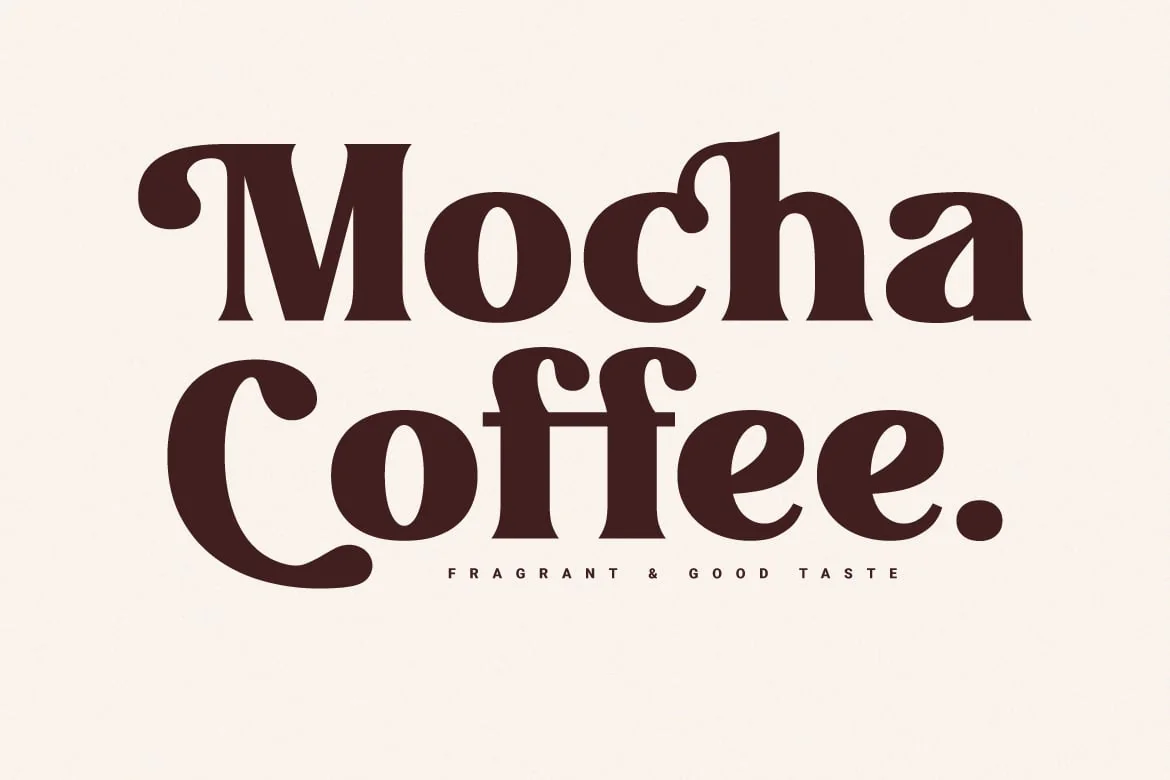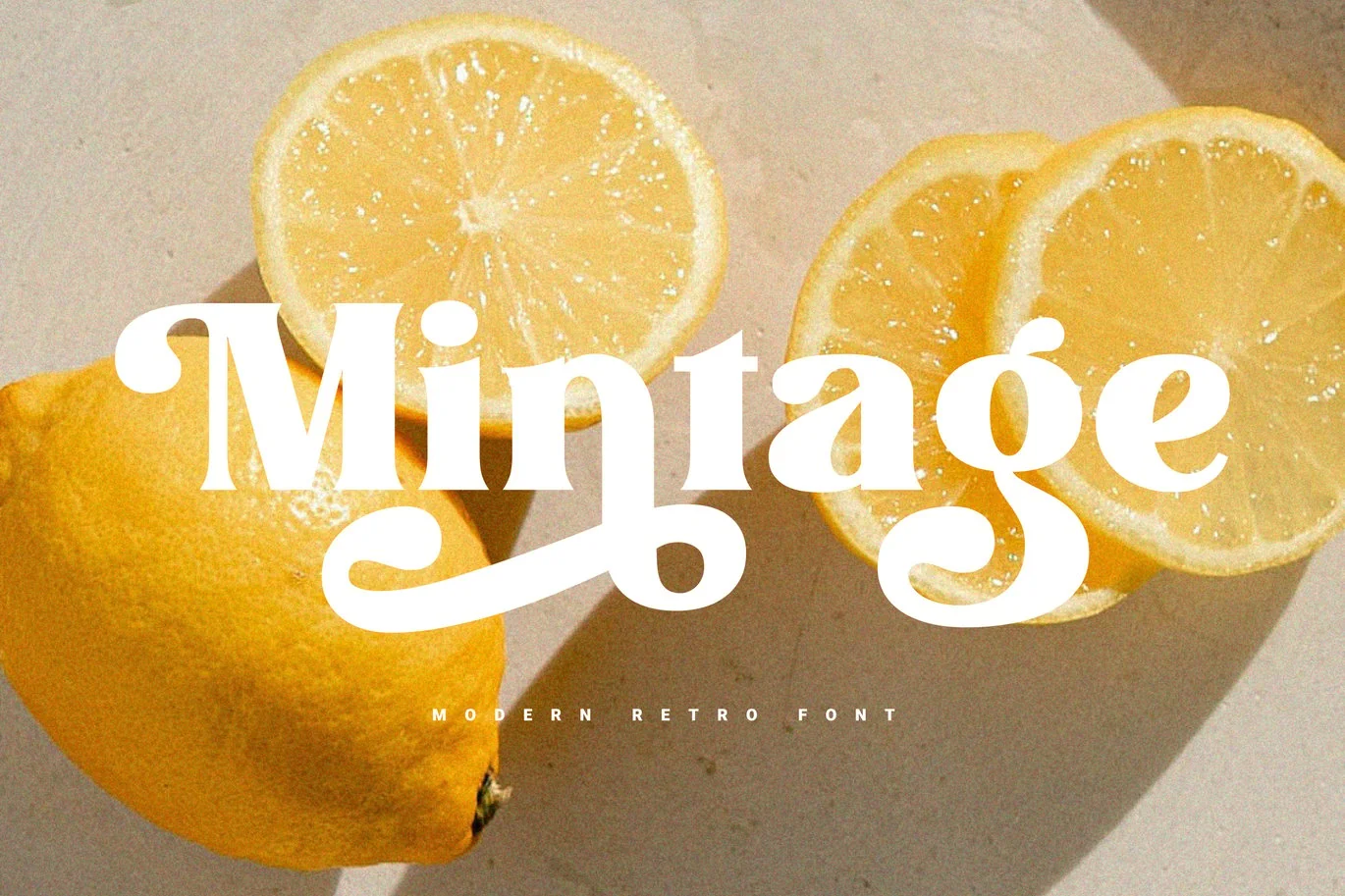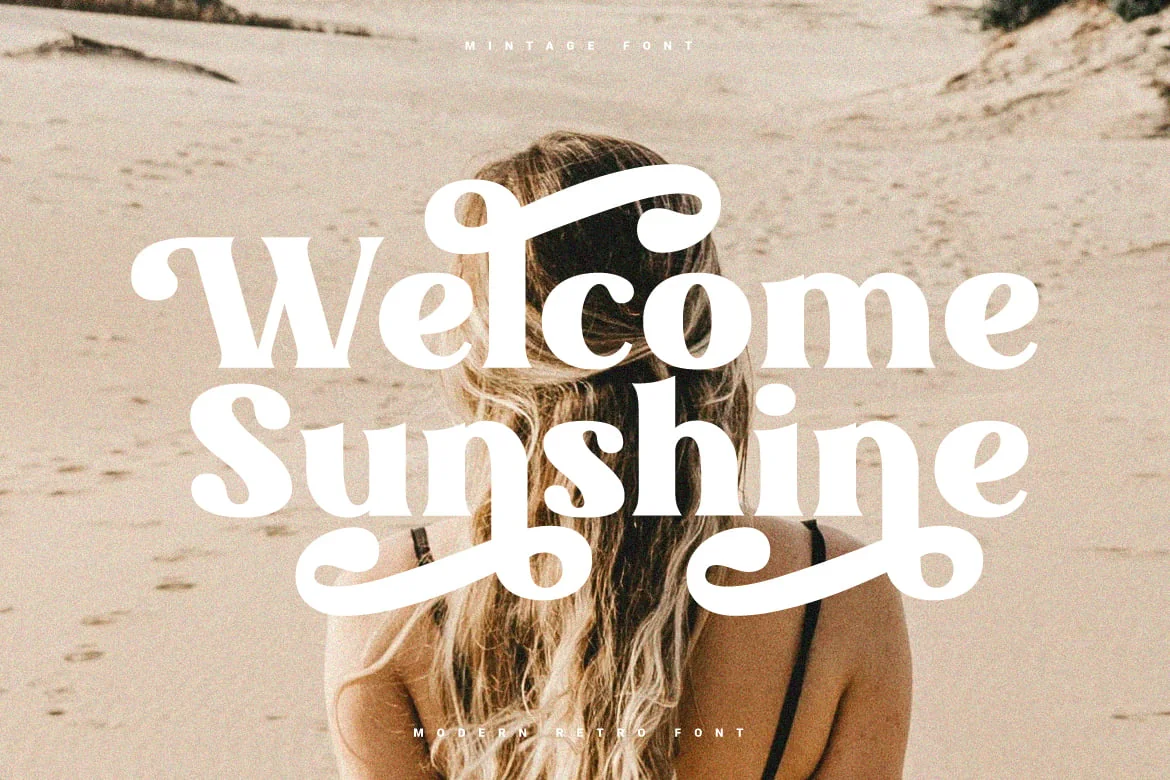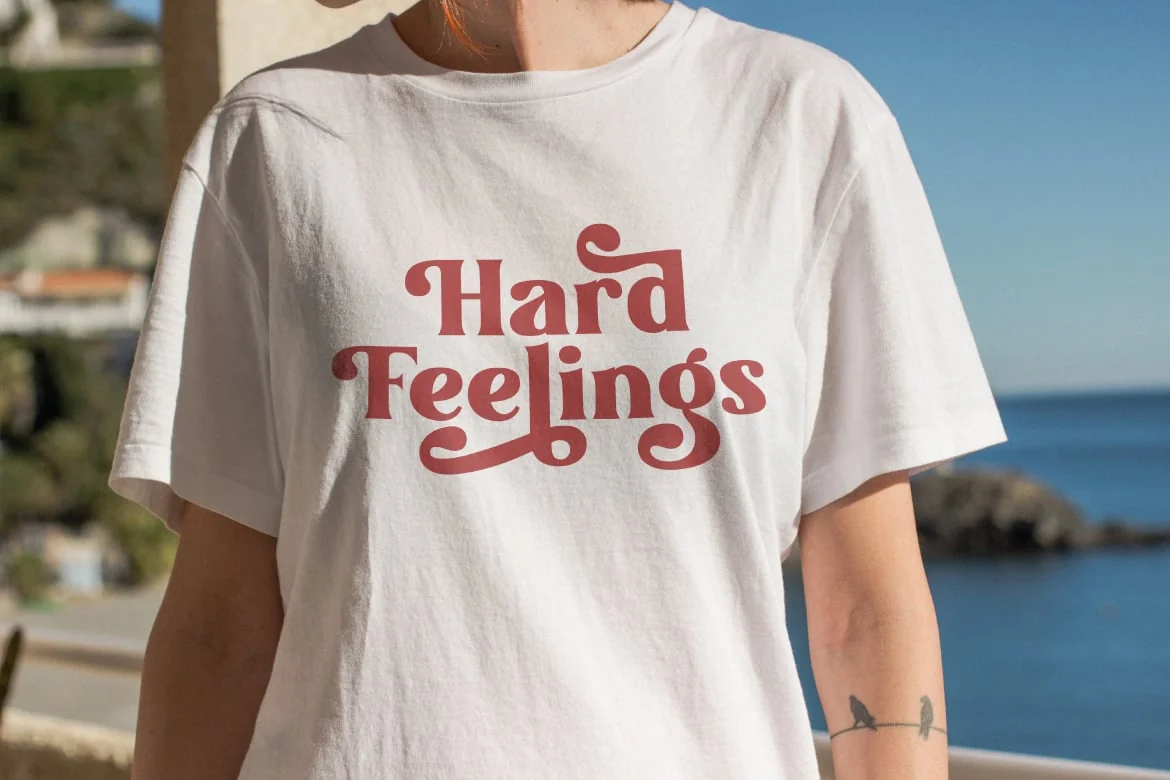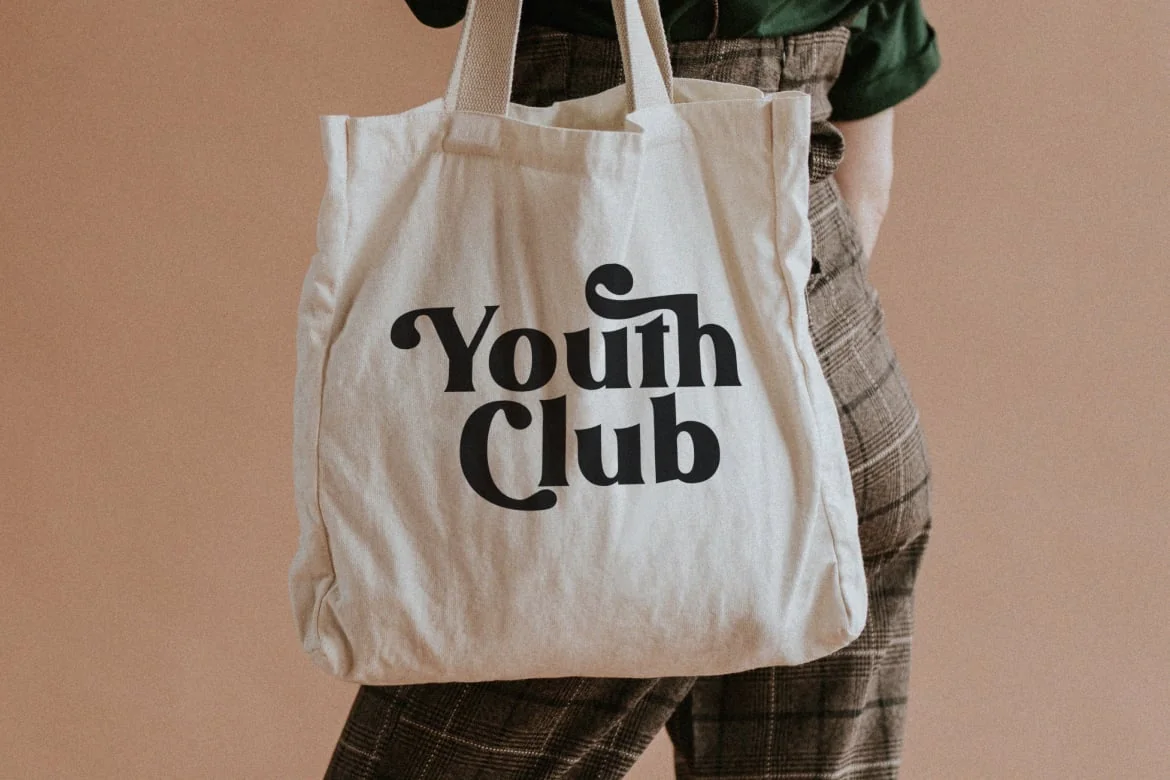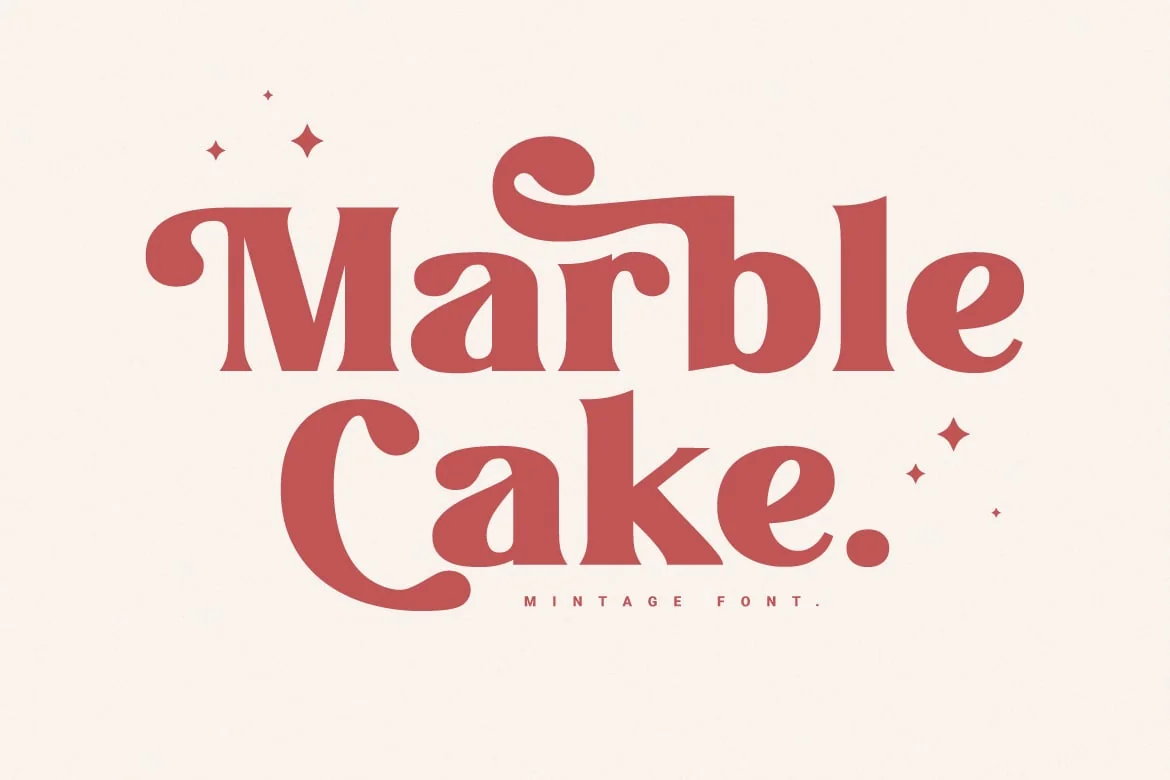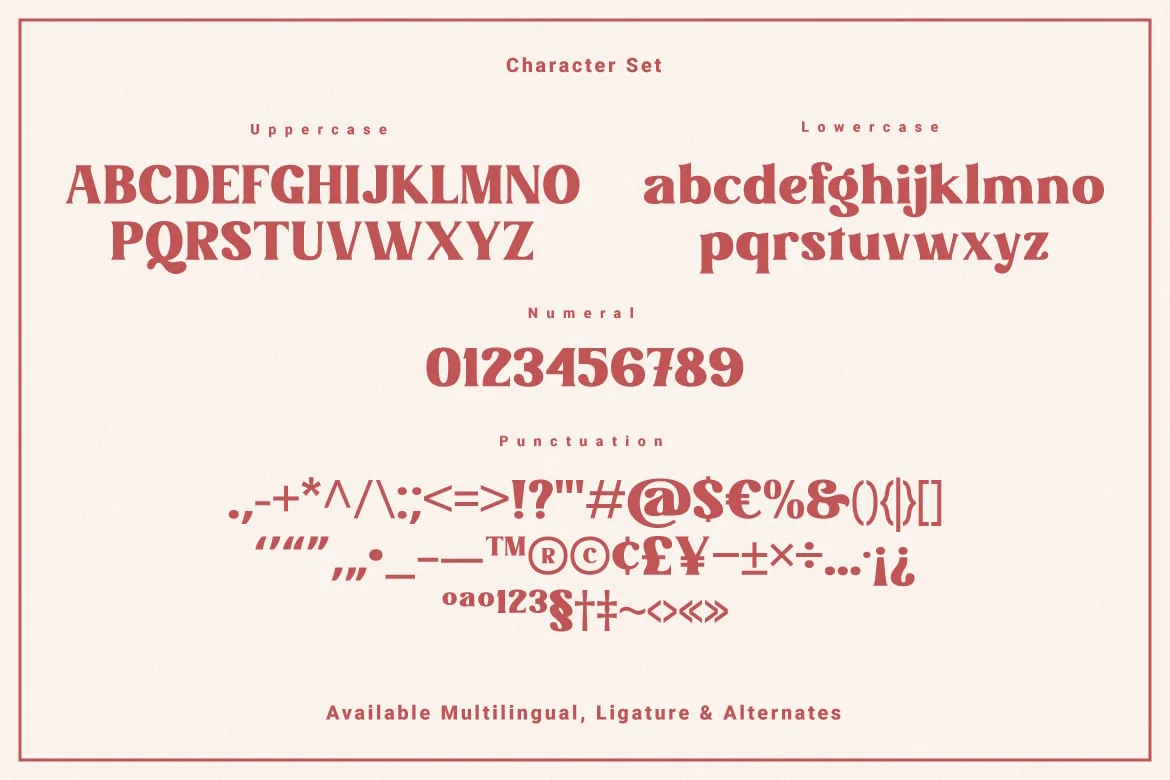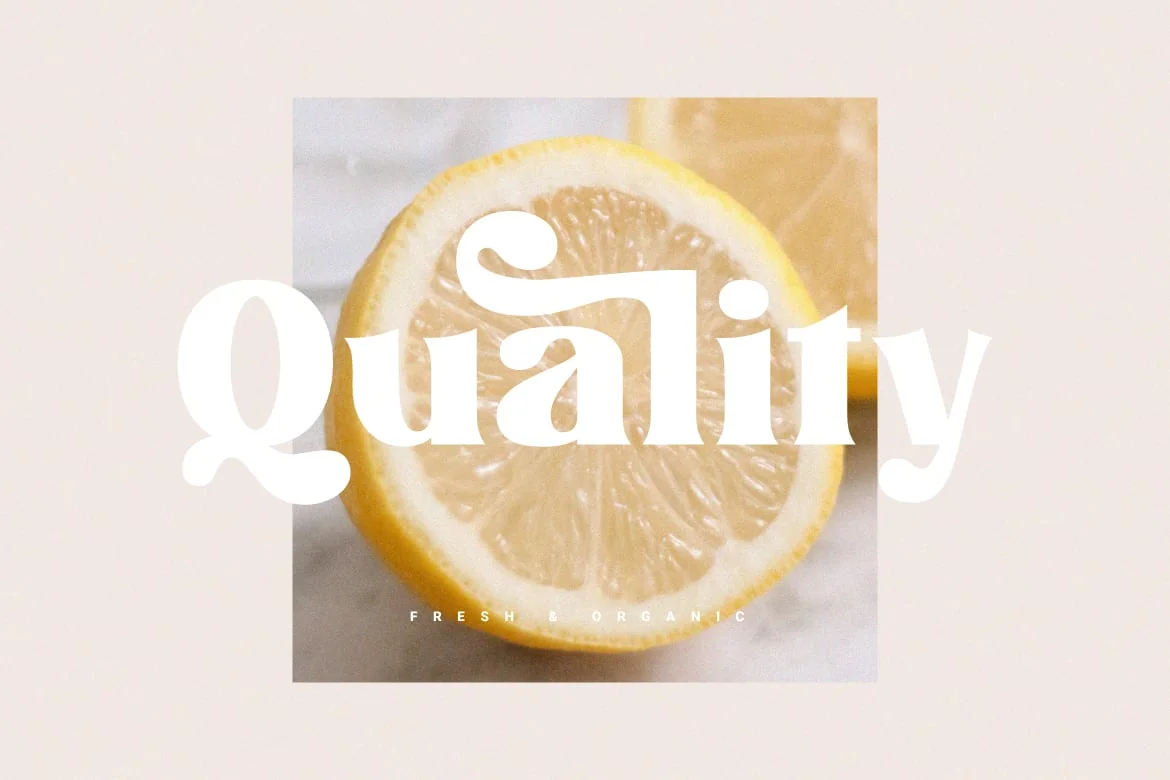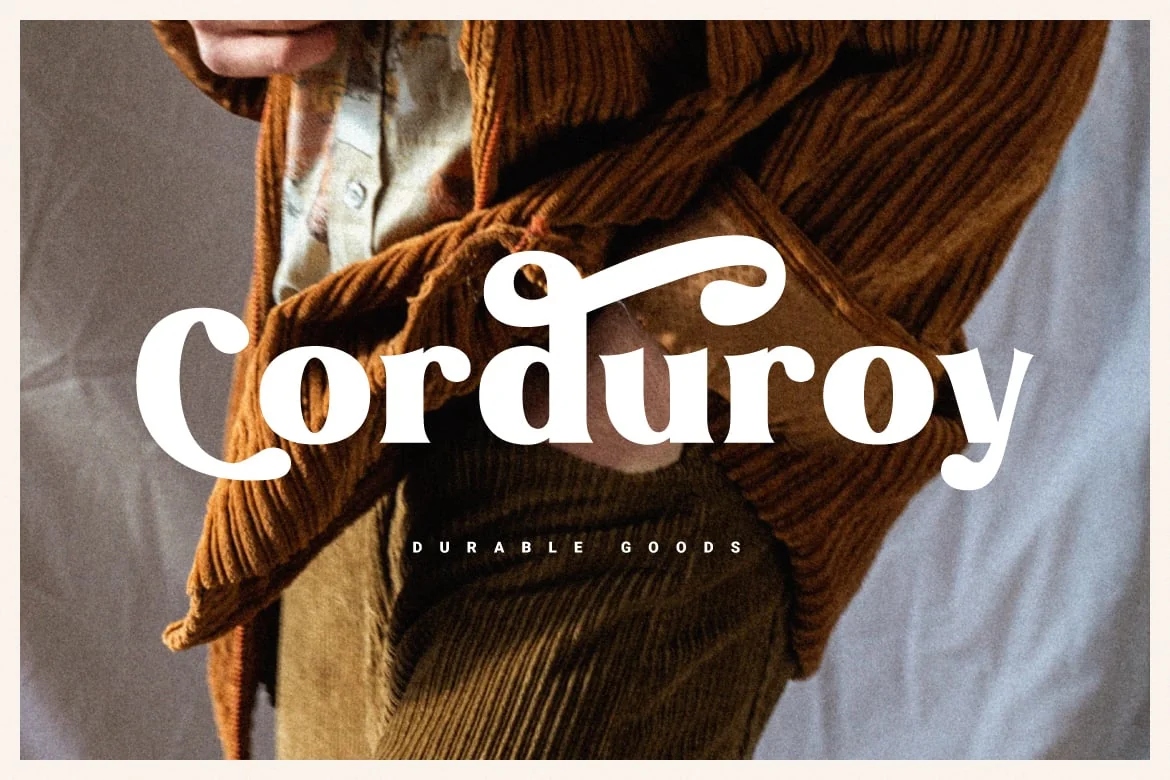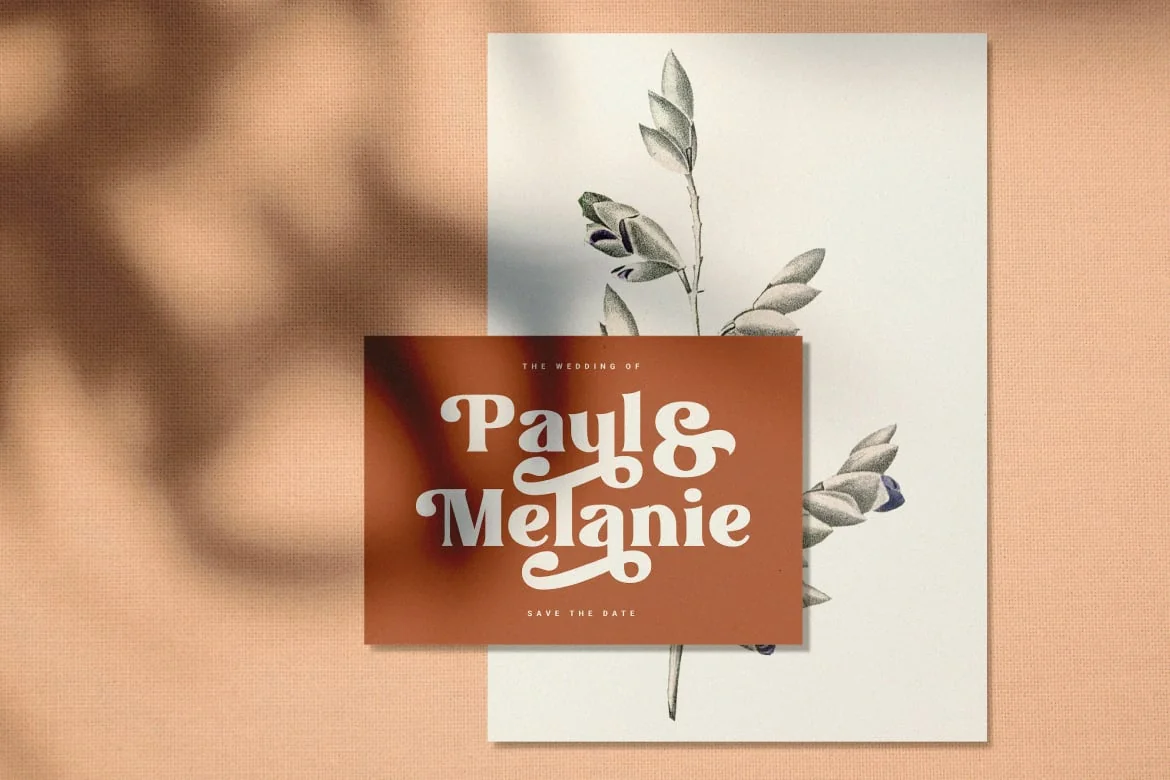
Mintage – Modern Retro Font
Mintage: Modern & retro font with a variety of alternative characters to make every word you make more eye-catching. Great for social media post designs, branding, merchandise, posters etc.
- Features: Uppercase, Lowercase, Numeral, Punctuation, Multilingual, Ligature, Alternates & PUA Encoded.